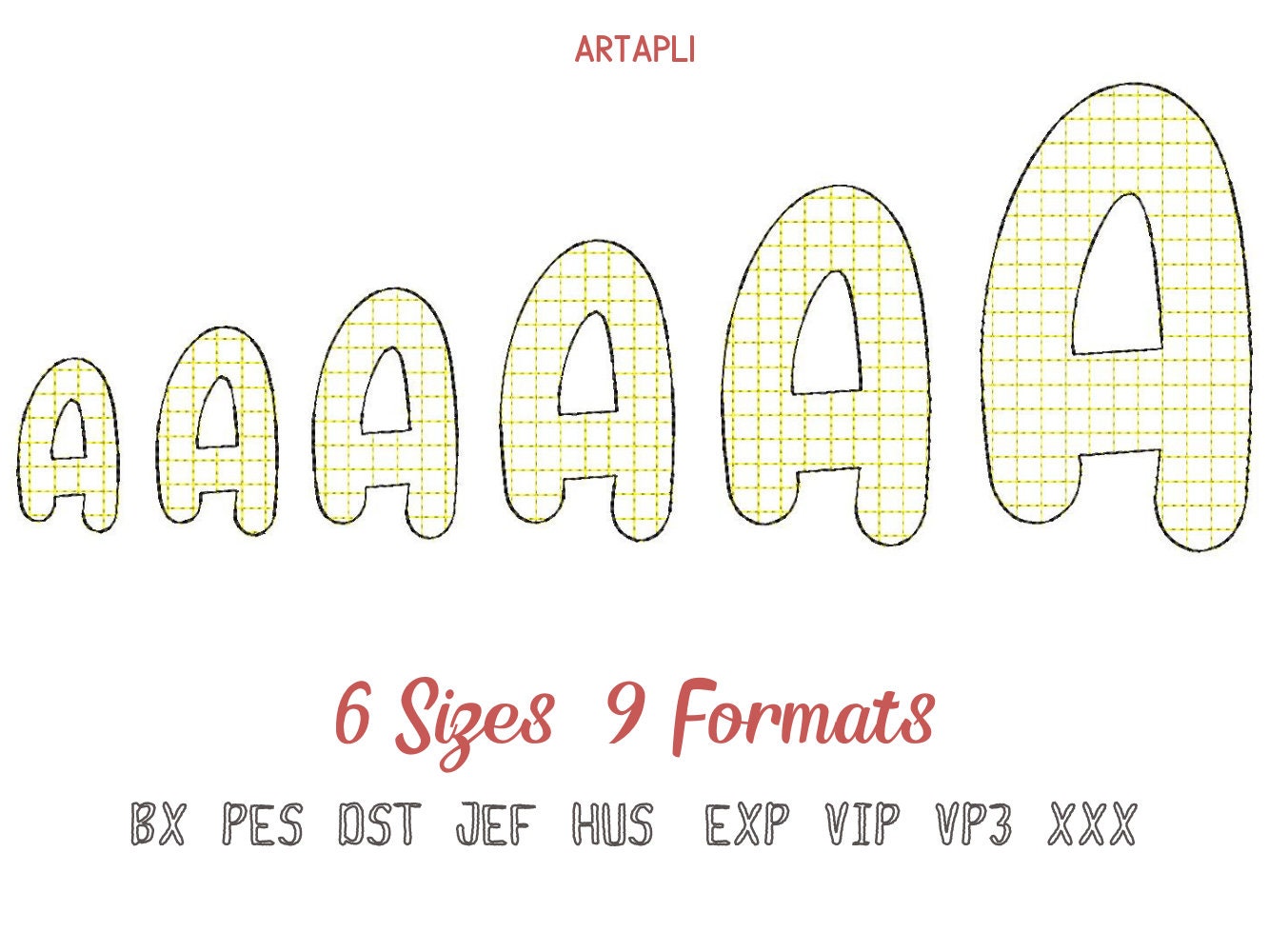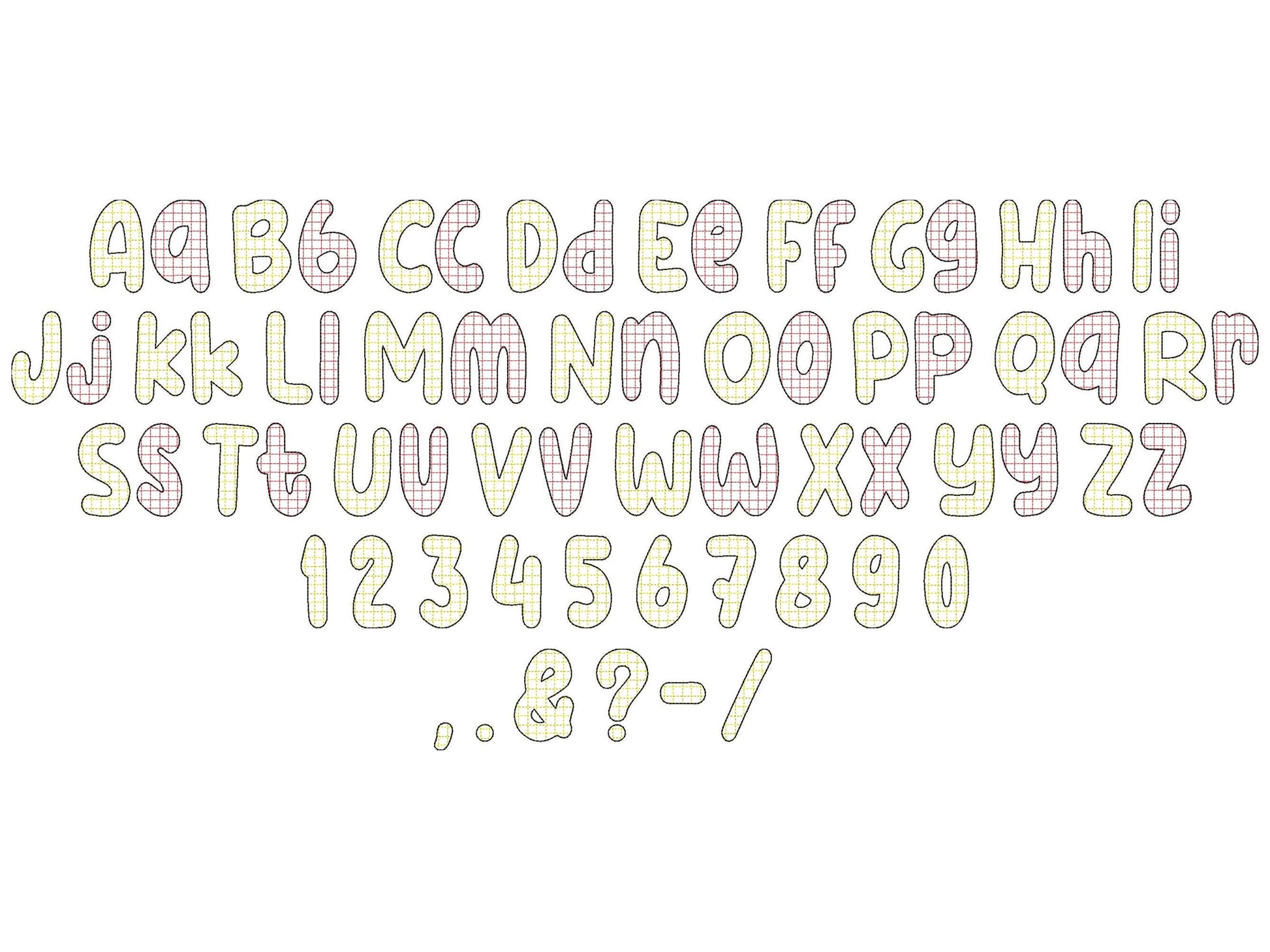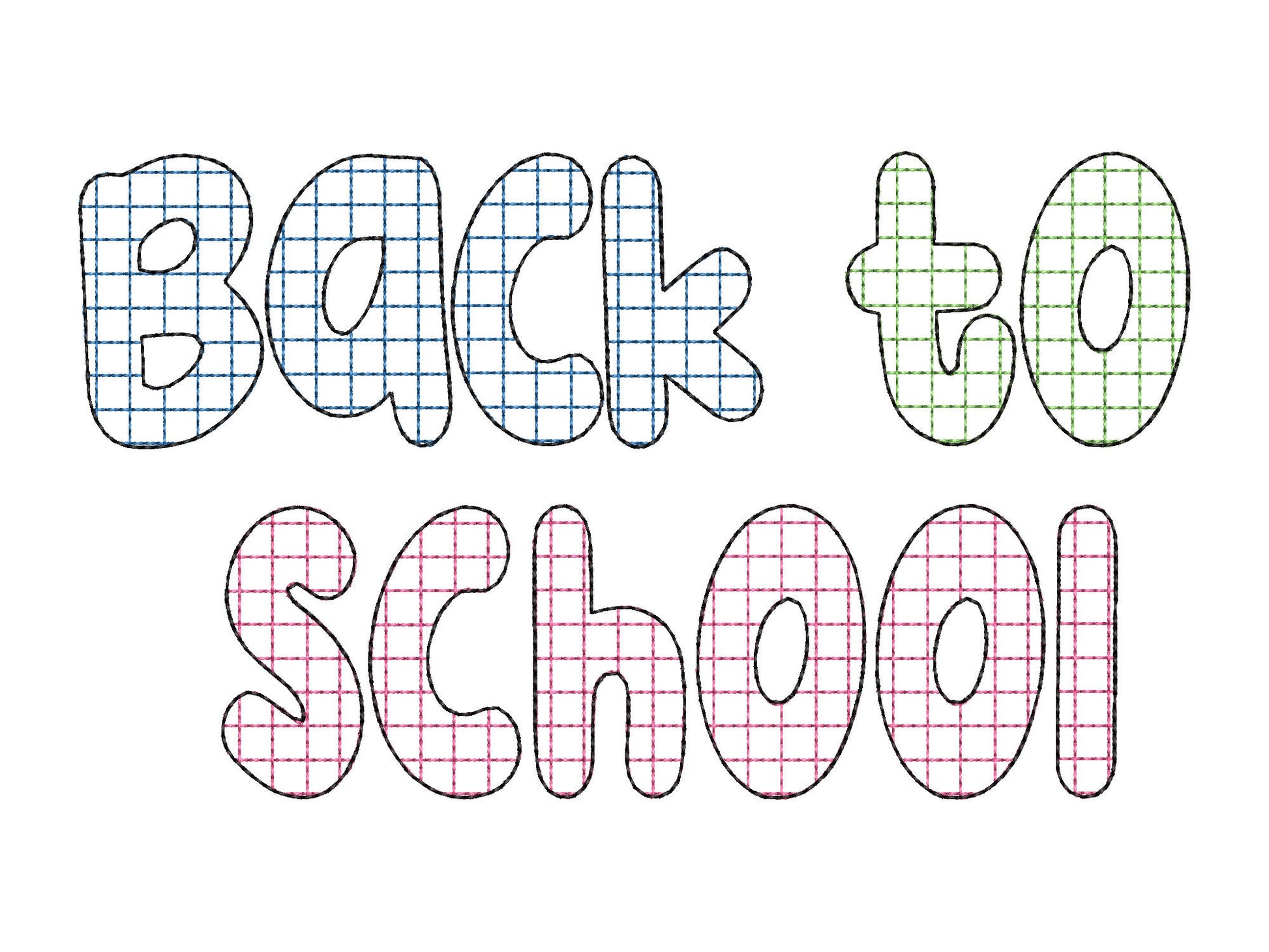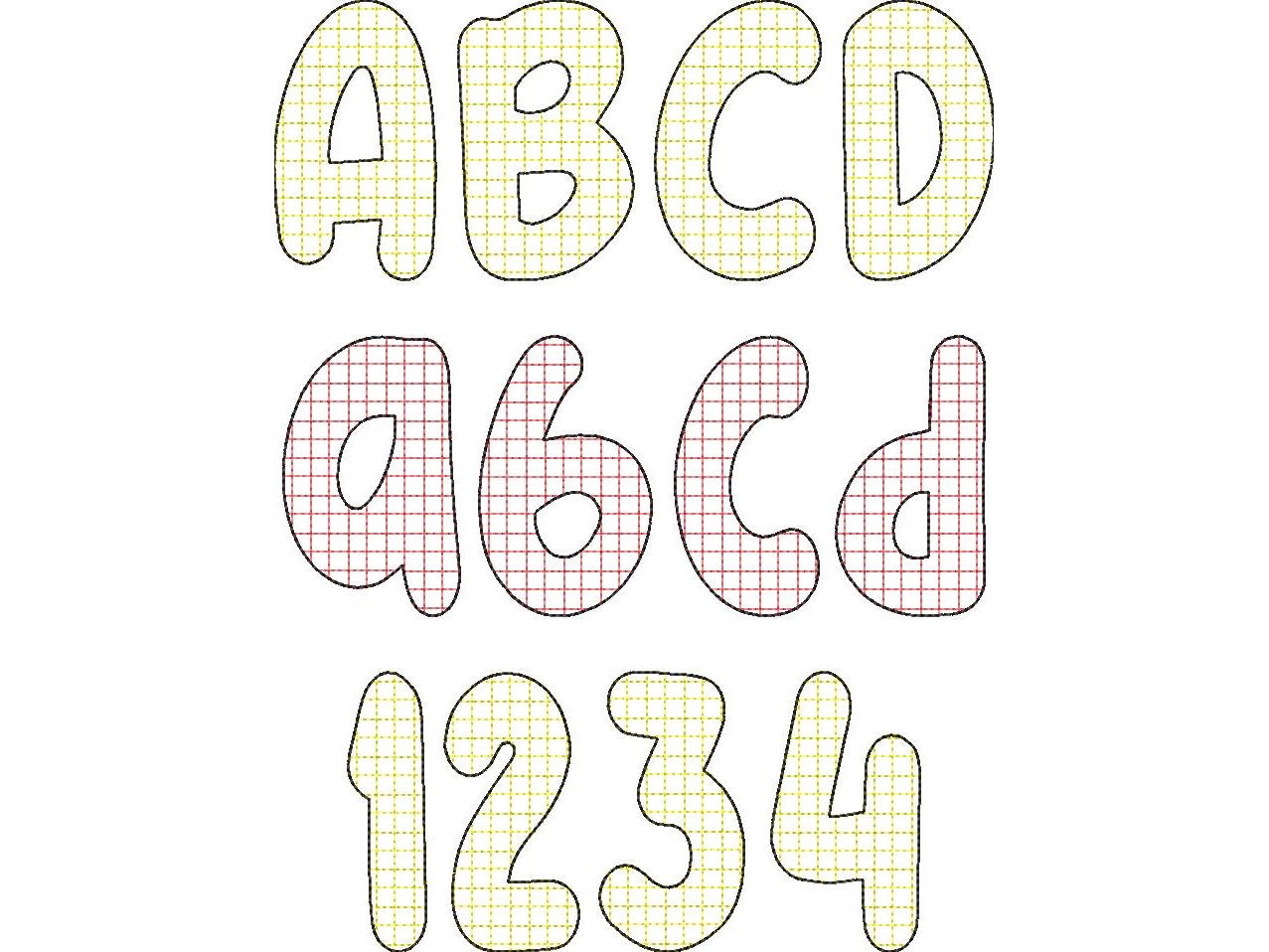
Quick Sketch Stitch Plaid Patterned Font
Light plaid stitching with a bean stitch outline lets the fabric show through, best on light fabrics; you can also use it as a raggedy edge applique. Uppercase and lowercase letters, numbers and punctuation in six sizes: 1.4, 1.7, 2, 2.4, 2.9 and 3.8 inches.
- Quick sketch plaid font
- Uppercase, lowercase, numbers 0-9, punctuation
- 6 sizes, 1.4 to 3.8 in